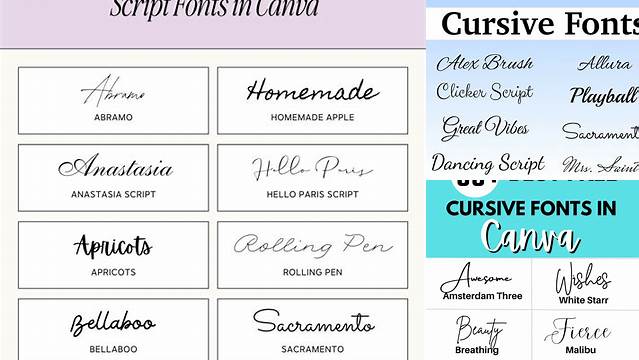
Best Cursive Fonts For Students: Free & Easy To Read
Hey guys! Ever wondered how to make your handwriting look super stylish? Or maybe you're a student trying to ace that calligraphy assignment? Well, you've come to the right place! We're diving deep into the world of cursive handwriting fonts, especially for students. Let's explore some fantastic options that are not only beautiful but also super practical for learning and everyday use. Get ready to level up your handwriting game!
1. Understanding the Importance of Cursive Handwriting
Alright, letâs kick things off by understanding why cursive handwriting is still a big deal. In today's digital age, you might think typing is king, but cursive writing offers unique benefits. First off, it improves your motor skills. When you're connecting those letters, you're actually giving your brain and hand a workout. This coordination is crucial for other activities too, like playing a musical instrument or even just tying your shoelaces. Plus, learning cursive can boost your memory and cognitive abilities. Think of it as a mental exercise that keeps your brain sharp. Another cool thing about cursive? It helps you read historical documents. Imagine trying to decipher the Declaration of Independence if you only knew print! Cursive connects you to the past in a tangible way. So, while it might seem old-school, cursive handwriting is a skill thatâs still super relevant and beneficial, especially for students. Trust me, adding this to your toolkit is a total win!
2. Why Choose Cursive Fonts for Student Projects?
So, why should you even bother with cursive fonts for your projects? Well, cursive fonts add a touch of elegance and personalization that you just canât get with regular block letters. Imagine submitting a history project with a title written in a beautiful, flowing cursive â it instantly grabs attention and makes your work stand out. Plus, using cursive can make your projects feel more unique and authentic. In an age where everything looks so digital and uniform, handwriting adds a human touch. It shows you've put in extra effort and care into your work. Cursive fonts can also make your notes and assignments easier to read, especially if you find your regular handwriting a bit messy. By practicing with different cursive styles, you can develop a handwriting style thatâs both legible and stylish. So, for everything from presentations to essays, cursive fonts can be a game-changer for students. Give it a try and see how it transforms your work!
3. Free Cursive Fonts for Students
Now, let's get to the good stuff: free cursive fonts! There are tons of amazing options out there that wonât cost you a dime. One popular choice is âDancing Scriptâ. Itâs playful and elegant, making it perfect for titles and headings. Another great one is âGreat Vibesâ, which has a classy, vintage feel â ideal for invitations or special projects. Then there's âPacificoâ, a smooth and flowing font thatâs super easy to read, making it great for longer texts and notes. Don't forget âLobster Twoâ, a bold and eye-catching font thatâs perfect for posters or presentations. And if you're looking for something a bit more traditional, âRuthieâ is a beautiful, classic cursive thatâs perfect for formal assignments. The best part? You can find all these fonts (and many more!) on websites like Google Fonts and DaFont. So, go ahead and explore â thereâs a perfect free cursive font out there for every student and every project. Happy writing, guys!
4. Easy to Read Cursive Fonts
When it comes to cursive, readability is key, especially for students. You want fonts that look beautiful but are also super easy to decipher. One fantastic option is âSegoe Scriptâ. Itâs clean, elegant, and the letters are well-formed, making it a breeze to read. Another winner is âLucida Handwritingâ. This font is designed to mimic natural handwriting, so it feels familiar and comfortable to the eye. Then there's âComic Neue Angularâ, which might sound surprising, but itâs actually a super legible cursive style with a modern twist. For something a bit more classic, check out â Snell Roundhandâ. Itâs a timeless choice thatâs both elegant and easy on the eyes. And letâs not forget âMistralâ, a script font thatâs known for its flowing letters and clear strokes. When choosing a cursive font, think about how quickly you can read it and how clearly each letter stands out. After all, the point is to make your writing look good and be easily understood. So, go for the fonts that strike the perfect balance between style and readability. You'll thank yourself later!
5. Best Cursive Fonts for Note-Taking
Alright, let's talk note-taking! Finding the right cursive font for note-taking can be a game-changer. You want something thatâs quick to write and easy to read, even when you're scribbling furiously in class. One excellent choice is âQuill Scriptâ. Itâs designed to mimic the flow of a quill pen, so itâs smooth and efficient for jotting down ideas. Another great option is âViburâ, a modern and legible cursive thatâs perfect for fast note-taking. If youâre looking for something a bit simpler, âJournalâ is a solid pick. Itâs straightforward and easy to write, making it ideal for long lectures. For a more casual vibe, âPermanent Markerâ can be surprisingly effective. It has a handwritten feel thatâs both clear and quick to jot down. And letâs not forget âComing Soonâ, a quirky yet readable font thatâs perfect for adding a bit of personality to your notes. When choosing a cursive font for note-taking, think about the speed and clarity. You want a font that keeps up with your thoughts and doesnât leave you squinting later. Happy note-taking, everyone!
6. Cursive Fonts for Different Academic Subjects
Did you know that certain cursive fonts can vibe better with specific subjects? It's true! For history projects, a font like âOld English Text MTâ can add a touch of authenticity and historical flair. Imagine a title page that looks like it came straight out of a medieval manuscript! For literature assignments, a classic and elegant font like âGaramond Scriptâ can bring a sophisticated touch to your writing. Itâs perfect for essays and creative writing pieces. In science, a clean and legible font such as âSegoe Printâ can make complex notes and diagrams easier to understand. Clarity is key in science, after all! For math, a straightforward and precise font like âConsolasâ (though not cursive, itâs great for numbers) can prevent confusion and keep your equations looking neat. And for art projects, why not try something creative and expressive like âBrush Script MTâ? It adds a personal touch and can make your artwork even more eye-catching. So, next time youâre working on a project, think about the subject matter and choose a cursive font that complements it. Itâs a small detail that can make a big difference!
7. Practice Exercises for Improving Cursive Handwriting
Okay, guys, letâs talk practice! Just like any skill, improving your cursive handwriting takes time and effort. But donât worry, it can actually be fun! Start with the basics: letter formation. Spend some time practicing each letter individually, focusing on getting the shapes and connections right. You can find tons of free worksheets online that guide you through this. Next, move on to words and phrases. Choose some common words and try writing them out in cursive, paying attention to the flow and rhythm of the letters. One super effective exercise is copying out passages from your favorite books. This helps you get a feel for different cursive styles and improve your overall handwriting speed. Donât forget to practice your signature too! A stylish signature can make a great impression. Another tip? Use different writing tools. Try pens, pencils, and even calligraphy markers to see what works best for you. And remember, consistency is key. Even just 15 minutes of practice a day can make a huge difference. So, grab a pen and get practicing â you'll be amazed at how quickly you improve!
8. Tools and Resources for Learning Cursive
So, you're ready to dive into the world of cursive? Awesome! The good news is, there are tons of fantastic tools and resources out there to help you on your journey. First off, check out online handwriting tutorials. Websites like YouTube and Skillshare have loads of videos that break down the basics of cursive and offer helpful tips and tricks. Then there are handwriting workbooks. These are great for structured practice and often include exercises for letter formation and word connections. You can find them at most bookstores or online. Donât forget about apps! There are some fantastic handwriting apps available for both iOS and Android that offer interactive lessons and personalized feedback. One cool resource is Google Fonts. Itâs a treasure trove of free cursive fonts that you can download and experiment with. You can also find helpful articles and blog posts online that offer advice on improving your cursive handwriting. And if youâre looking for a more personal touch, consider joining a calligraphy or handwriting workshop. Learning alongside others can be super motivating! So, whether you prefer online tutorials, workbooks, apps, or workshops, thereâs a resource out there thatâs perfect for you. Happy learning!
9. Cursive Handwriting vs. Print Handwriting
Let's get into the age-old debate: cursive versus print handwriting. Both styles have their pros and cons, and understanding the differences can help you decide when to use each one. Print handwriting, with its clear and separate letters, is often easier to read at a glance. This makes it great for things like short notes, labels, and quick reminders. However, print can be slower to write, since you have to lift your pen after each letter. Cursive, on the other hand, is all about flow and connection. The linked letters allow you to write more quickly and smoothly, which is awesome for taking notes in class or writing longer passages. Cursive also engages different parts of your brain, boosting memory and cognitive skills. But, letâs be real, messy cursive can be a pain to read. That's why legibility is so crucial! Ultimately, the best handwriting style depends on the situation and your personal preference. Many people find that a combination of both cursive and print works best. You might use print for headings and cursive for the main body of your text. The key is to practice both styles and find what works for you. Either way, mastering both cursive and print is a valuable skill that will serve you well in school and beyond!
30. Resources for Cursive Fonts and Handwriting Practice Online
Alright, guys, let's wrap things up with a rundown of some fantastic online resources for cursive fonts and handwriting practice! The internet is a treasure trove of tools and materials to help you master the art of cursive. First off, check out Google Fonts. It's a free resource with a huge selection of cursive fonts that you can download and use in your projects. DaFont is another great website with a vast collection of fonts, including many cursive styles. For handwriting practice, there are tons of websites that offer free cursive worksheets and tutorials. Websites like HandwritingWorksheets.com and K5 Learning have printable worksheets for all skill levels. YouTube is also a goldmine of handwriting tutorials. Search for âcursive handwriting tutorialâ and you'll find countless videos with helpful tips and demonstrations. Don't forget about online handwriting courses. Websites like Skillshare and Udemy offer comprehensive courses on cursive handwriting and calligraphy. These courses can provide structured lessons and personalized feedback to help you improve your skills. So, whether you're looking for fonts, worksheets, or tutorials, the internet has you covered. Take advantage of these resources and start practicing your cursive today. Happy writing!